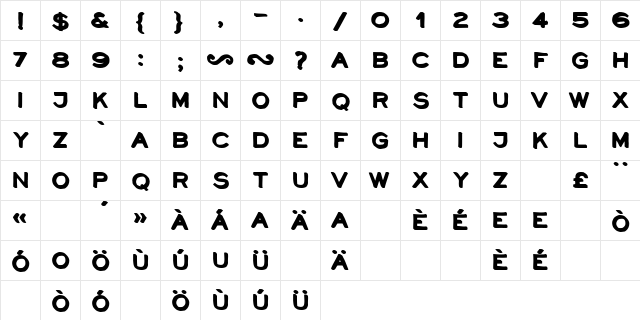
NeoRetroShadow Regular
Design Context for NeoRetroShadow Typeface
NeoRetroShadow has the warm character of retro typography — evoking diners, record sleeves, and the golden age of print advertising.
Ideal for diner signage, record shop branding, 70s/80s-themed projects, and heritage product labels.
Font Pairing: Combine NeoRetroShadow with a simple slab or neutral sans — period-accurate companions reinforce the vintage feel without competing for attention.
Pro Tip: Lean into NeoRetroShadow's period character by pairing it with aged paper textures, muted colour palettes, and vintage illustration styles.